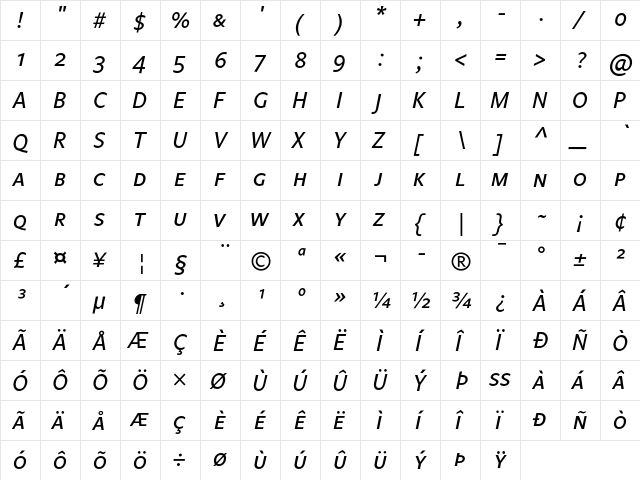
Legato SC Regular Italic Font Preview
Legato SC Regular Italic
Design Context for Legato Typeface
Legato takes a measured approach to typography — its balanced proportions and neutral character make it a reliable workhorse for both digital and print work. Its italic angle brings a sense of urgency and motion to the letterforms.
Pro Tip: Use Legato for emphasis, pull quotes, and subheadings where its slanted energy can add rhythm to the layout.